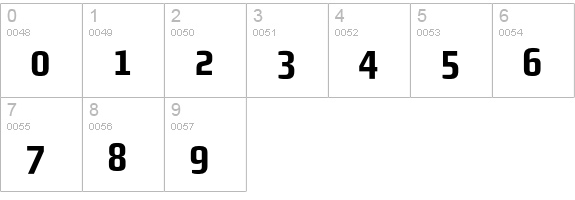
MorganSansCond BoldOffice Font Details
MorganSansCond BoldOffice font is a versatile and modern typeface that exudes professionalism and elegance. With its bold and condensed design, it is perfect for creating impactful headlines, titles, and branding materials. The sharp lines and clean curves of this font make it ideal for corporate and business use, adding a touch of sophistication to any project. What sets MorganSansCond BoldOffice font apart is that it is available for free download at FontsMarket.com. This means that you can easily access and use this high-quality font in your design projects without any cost. Whether you are designing a business presentation, website, or promotional material, MorganSansCond BoldOffice font will help you make a bold statement and leave a lasting impression on your audience. Elevate your designs with this sleek and professional font today!